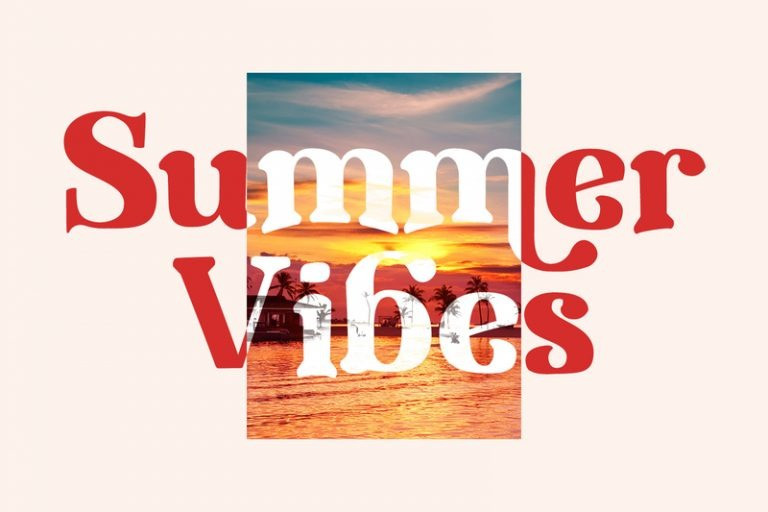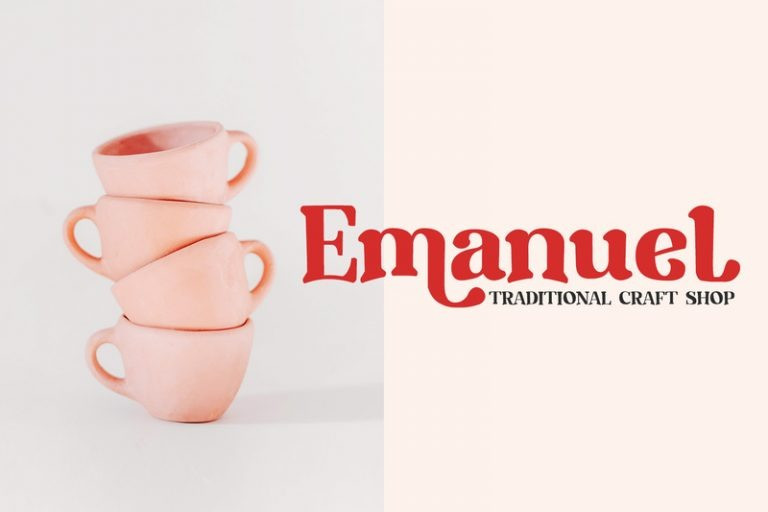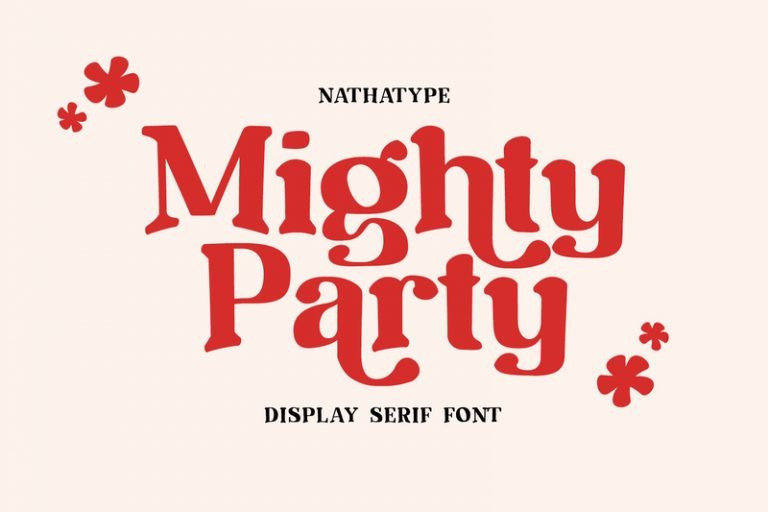
Mighty Party Font
Mighty Party Serif Font is a display serif font in thick weights to express friendly, modern nuances. It has a high contrast in curvy final wipe details on some of the letters. Its heights and proportions are not the same, but its simple forms are legible in both small and big text sizes. You can also enjoy the lovely features available in this font.